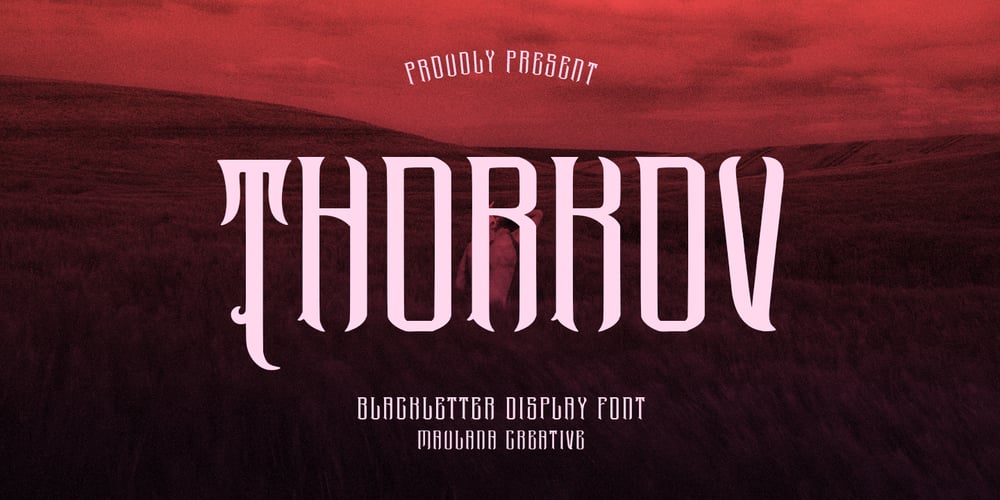
MC Thorkov
MC Thorkov font
MC Thorkov Font Family was designed by Gilang Maulana and published by Maulana Creative. MC Thorkov contains 1 styles and family package options. Thorkov Blackletter Decorative Display Font. With bold tall and sharp stroke, fun character. To give you an extra creative work. Thorkov font support multilingual language. This font is good for logo design, Social media, Movie Titles, Books Titles, a short text even a long text letter and good for your secondary text font with sans or serif. Make a stunning work with Thorkov font.Cheers,Maulana Creative